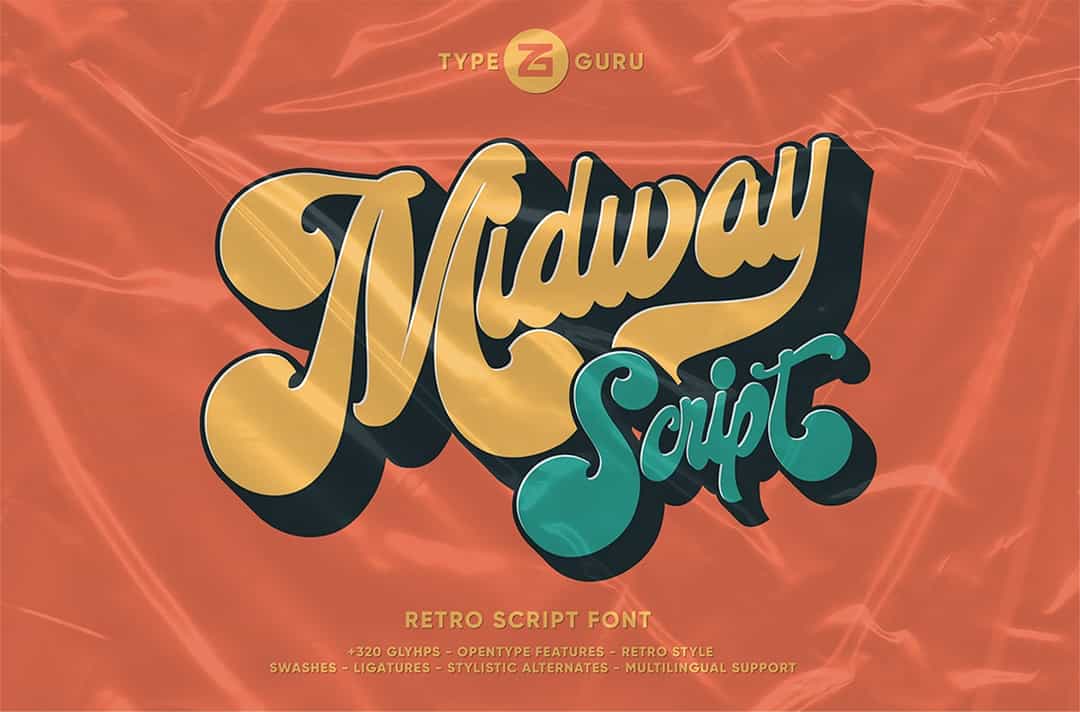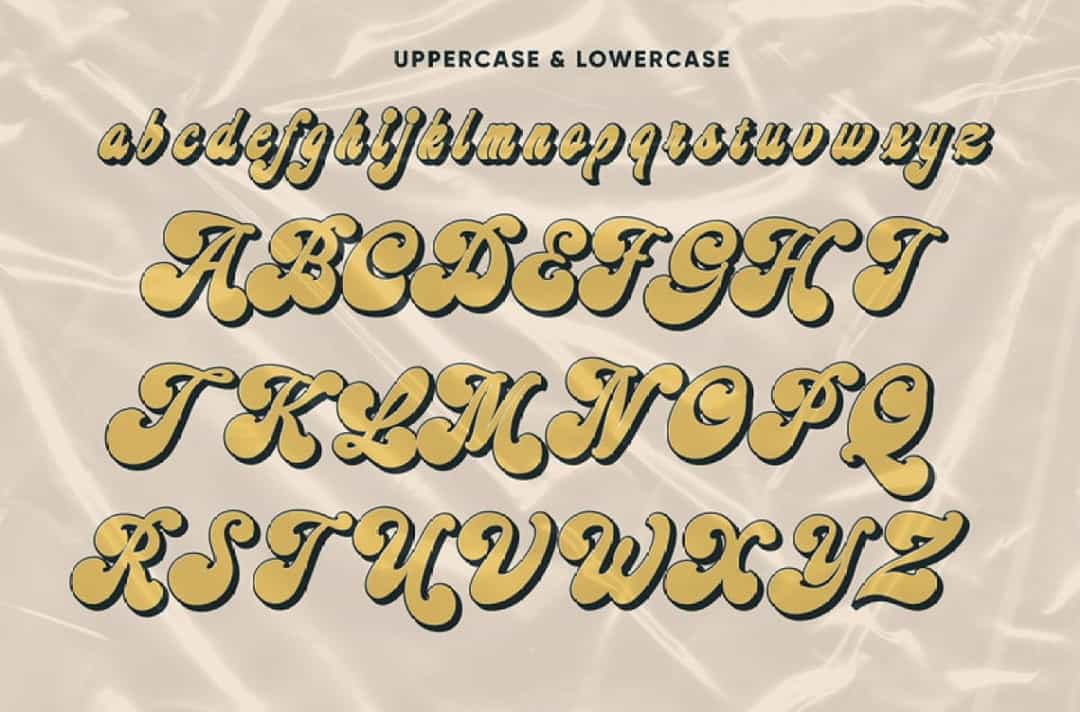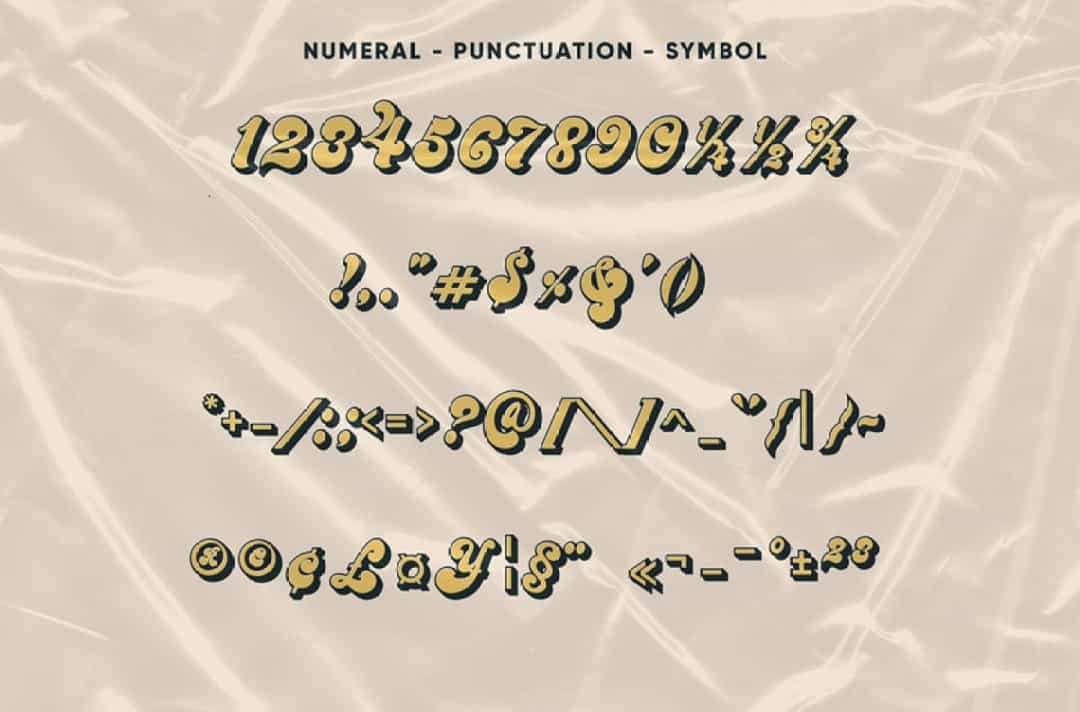
Midway is a fabulous, fierce script font with a vintage ambience and appeal which will be perfect for titles, wordmarks, directions, and other purposes, even for formal works such as invitations and labels and could also be used in magazines, logos, greetings cards packaging! Also, this font can also be used in fashion/makeup adverts or any form of advertisement at all!